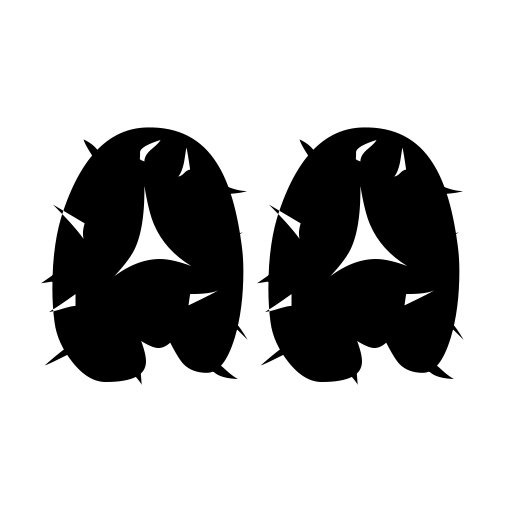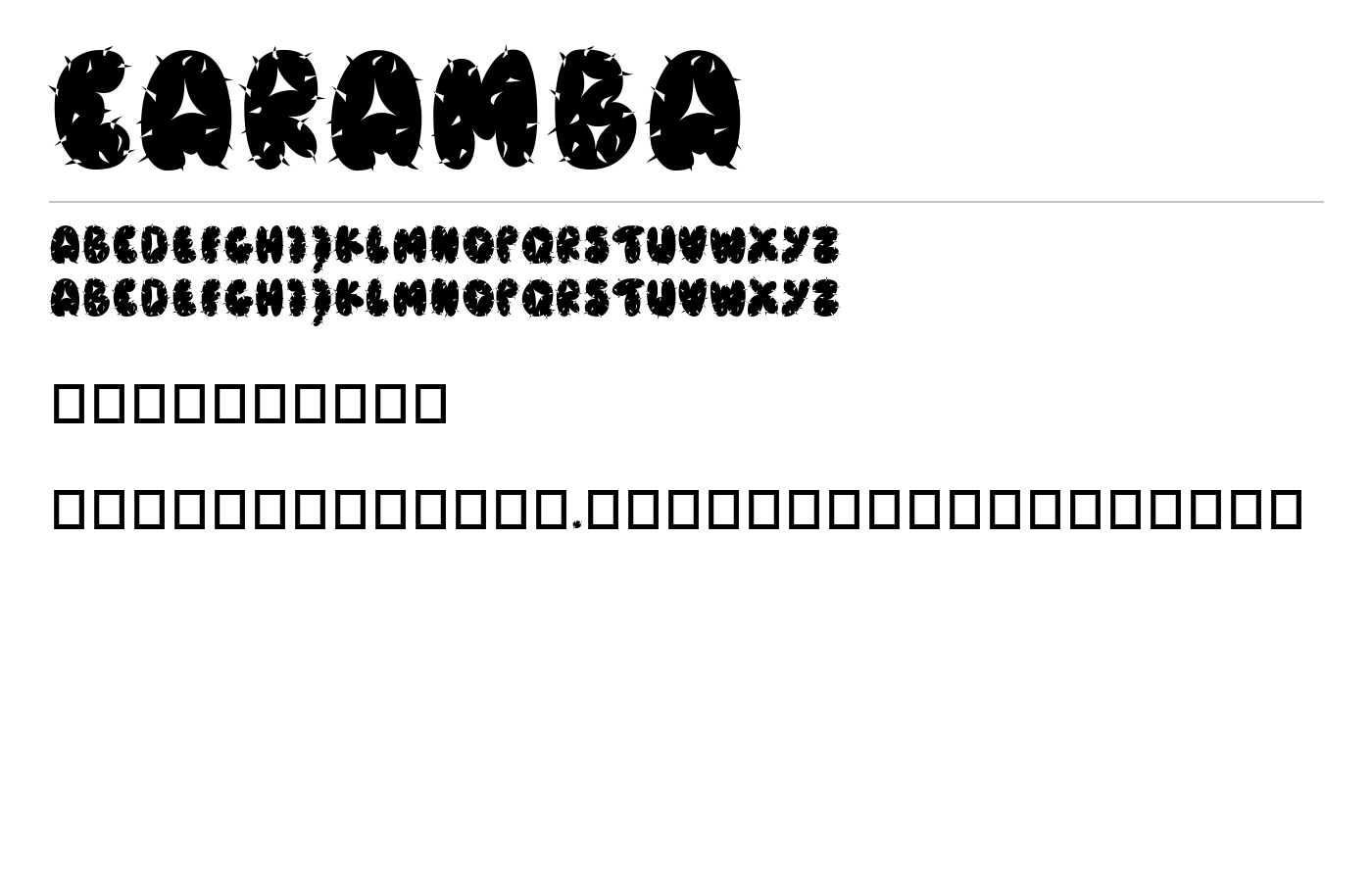
Caramba is a bold, decorative display font characterized by its thick, rounded letterforms adorned with sharp, thorn-like details, creating a playful yet edgy appearance. Its uppercase-only design and dense, tightly packed shapes give it a strong visual impact, making it ideal for eye-catching headlines, logos, and creative branding that seeks to convey energy and uniqueness. This font works best in informal or artistic contexts where distinctiveness and bold personality are key.
Caramba Font
About Caramba Font